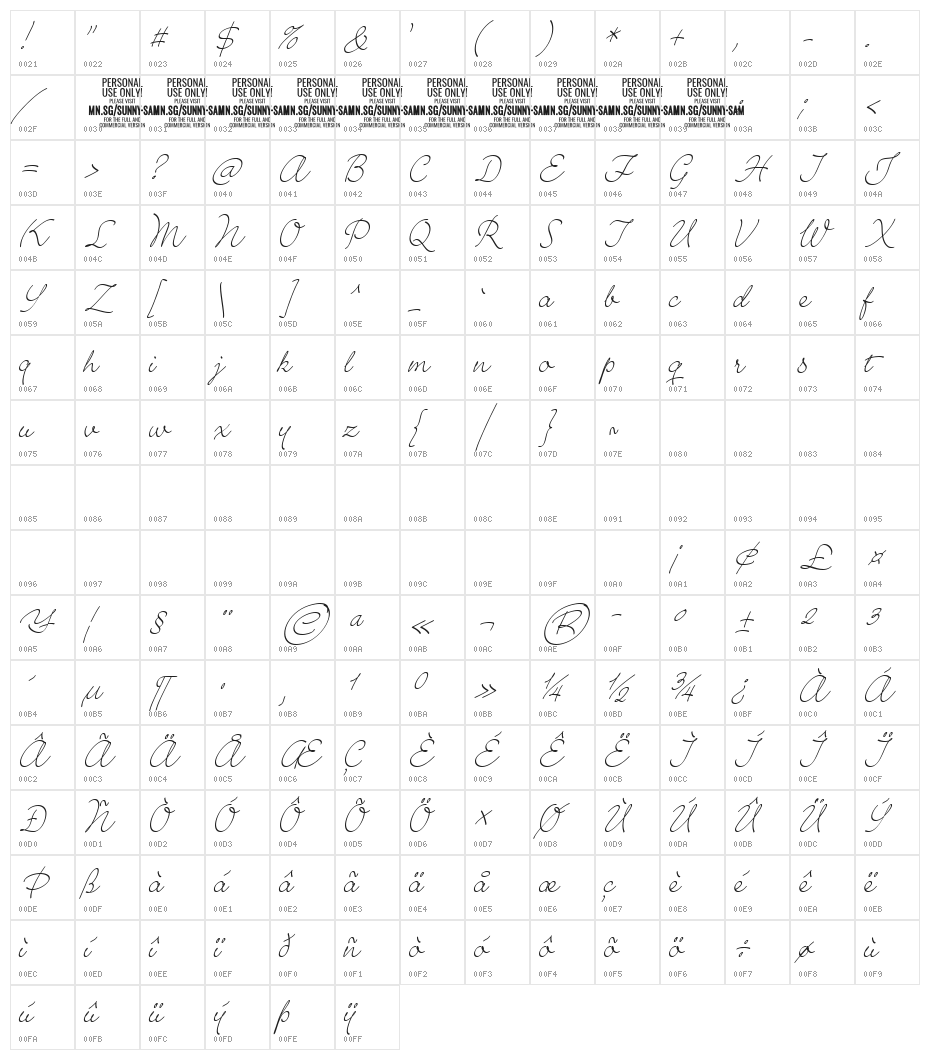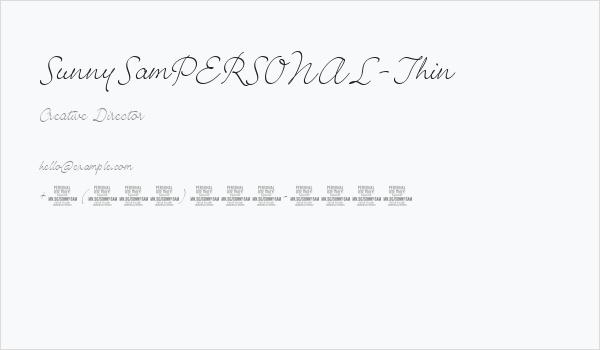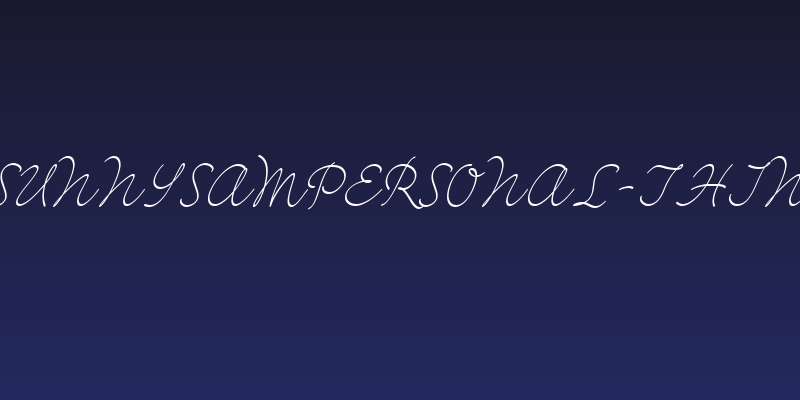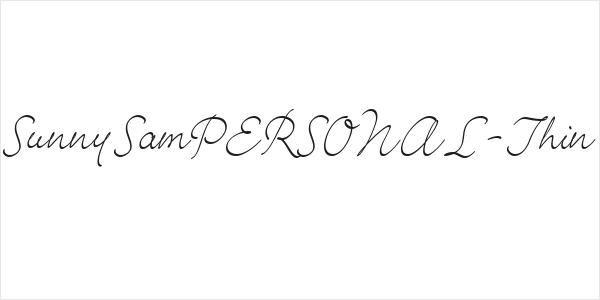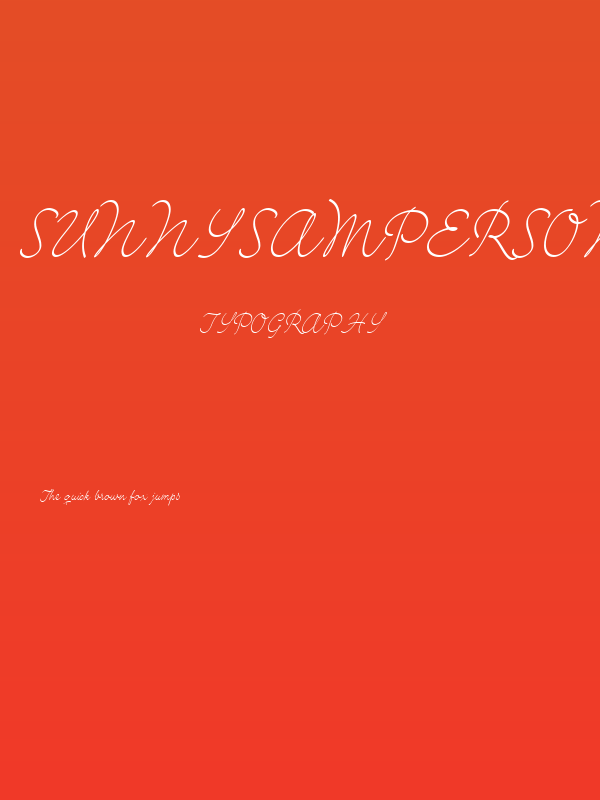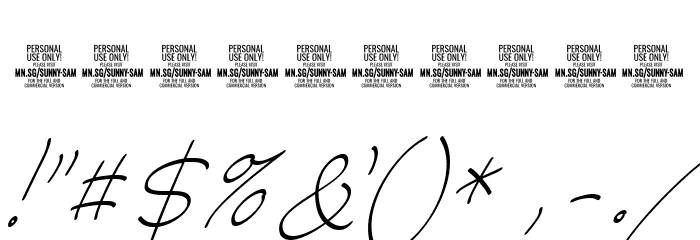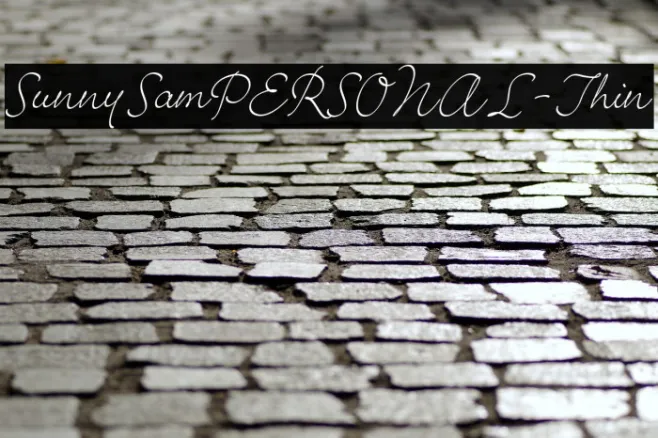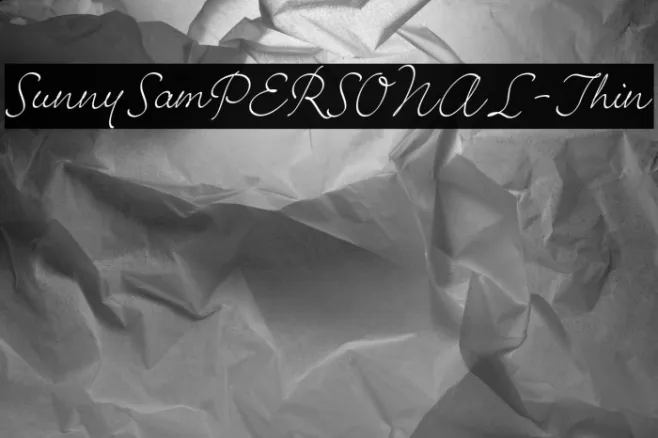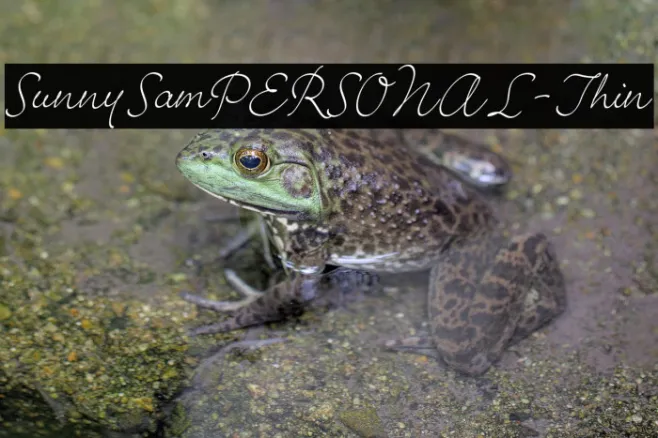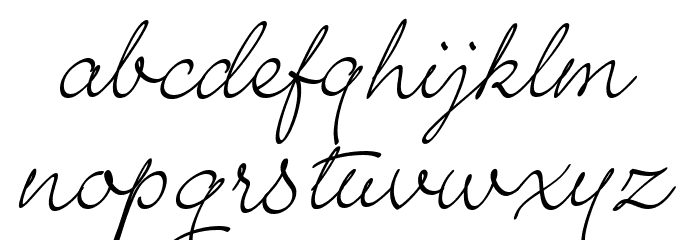
SunnySamPERSONAL-Thin Font
SunnySamPERSONAL-Thin Description
This elegant script font features a thin, flowing style that mimics the fluidity of natural handwriting. The characters are delicately crafted with smooth curves and a slight slant, giving it a sophisticated and graceful appearance. The uppercase letters are slightly larger and more ornate, while the lowercase letters maintain a consistent and harmonious flow. The font includes a full set of numerals and a variety of special characters, making it versatile for different design needs. Its thin strokes and cursive style make it ideal for projects that require a touch of elegance and personal flair.
| Proposed Projects | Ideal for wedding invitations, personal branding, greeting cards, and elegant stationery. |